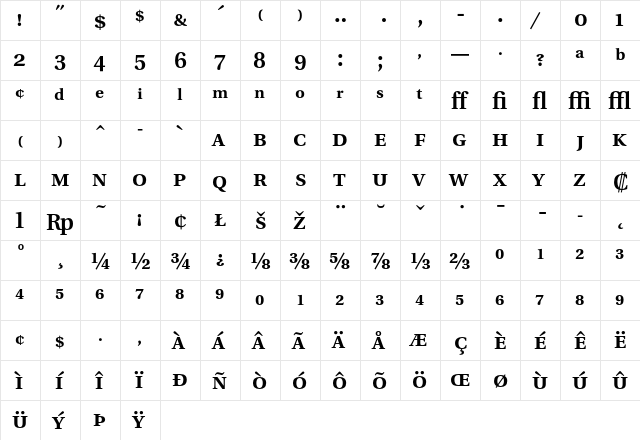
Utopia Expert Semibold
Design Context for Utopia Typeface
Utopia takes a measured approach to typography — its balanced proportions and neutral character make it a reliable workhorse for both digital and print work. The heavy weight commands attention and anchors typographic hierarchies.